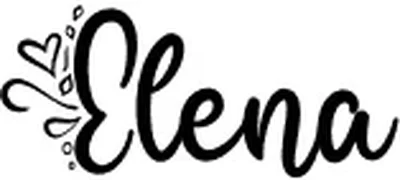
Elena 2 Font
Designers reaching for Elena 2 find a typeface that holds up across diverse media — print, web, and motion.
Its proportions suit a wide range of uses: website headers, printed flyers, restaurant menus, annual reports, and product packaging.